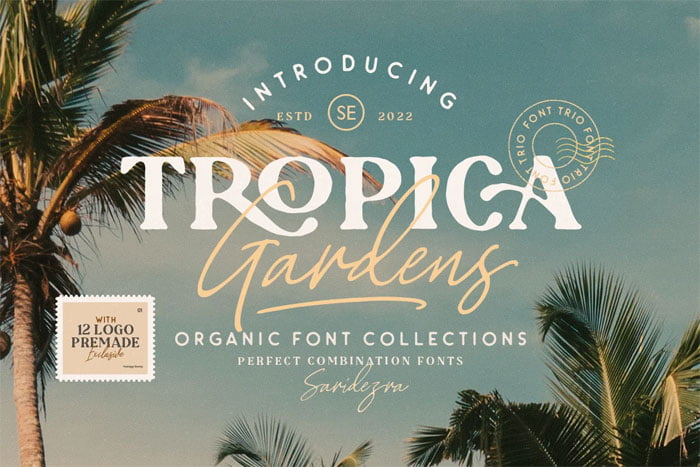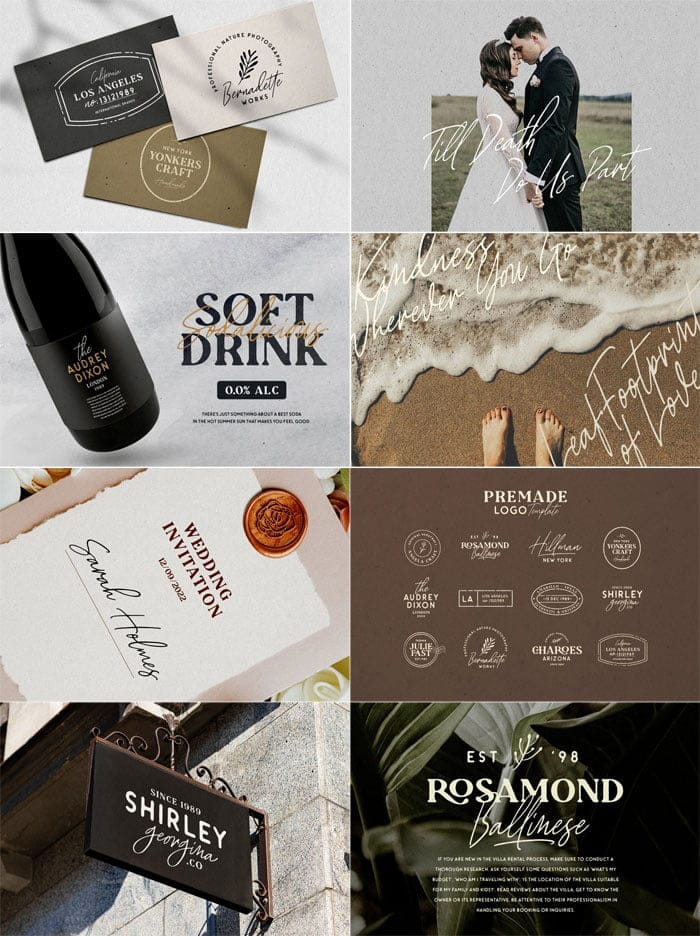
Tropica Gardens Font Trio (+LOGOS)
Tropica Gardens is perfect and essential combination between three fonts including bold serif, rounded sans, and authentic signature. This font trio also support multilingual, number and symbol. You can use this font for any purpose. The best part is, you don’t need to search for the pairing. It’s included in this package. Also comes with bonus, 12 beautiful premade logo which will make it easier for you to make a logo! Being expert just in one step! You Can Also Download Hallie Thompson Elegant Font Duo.
Tropica Gardens Font Trio (+LOGOS)